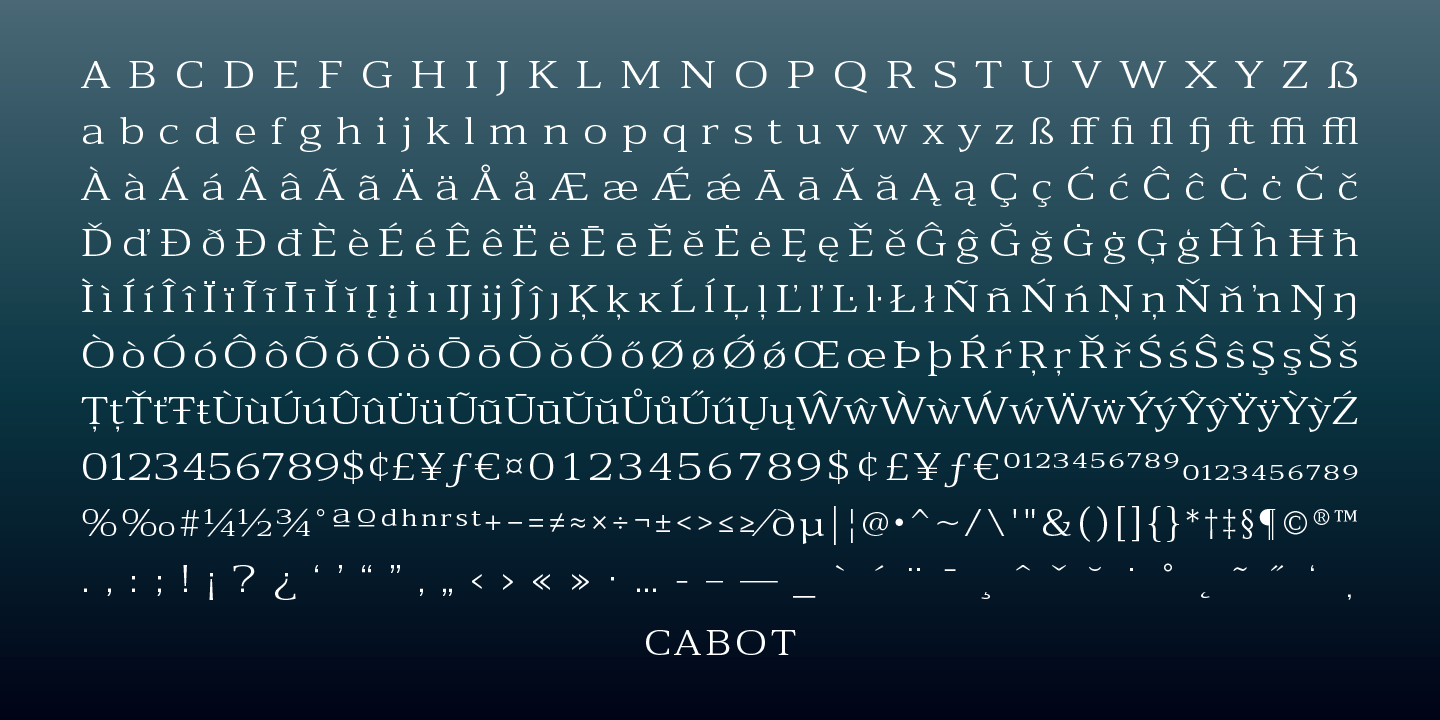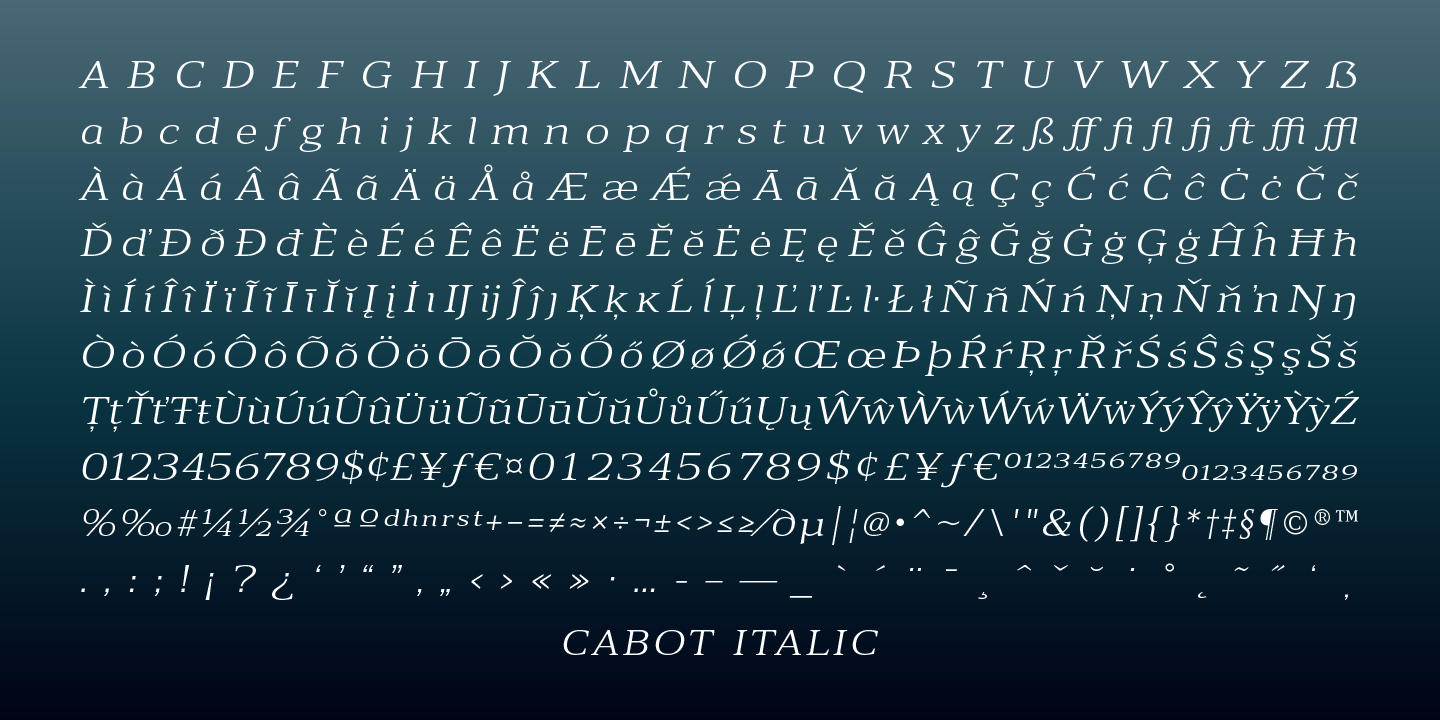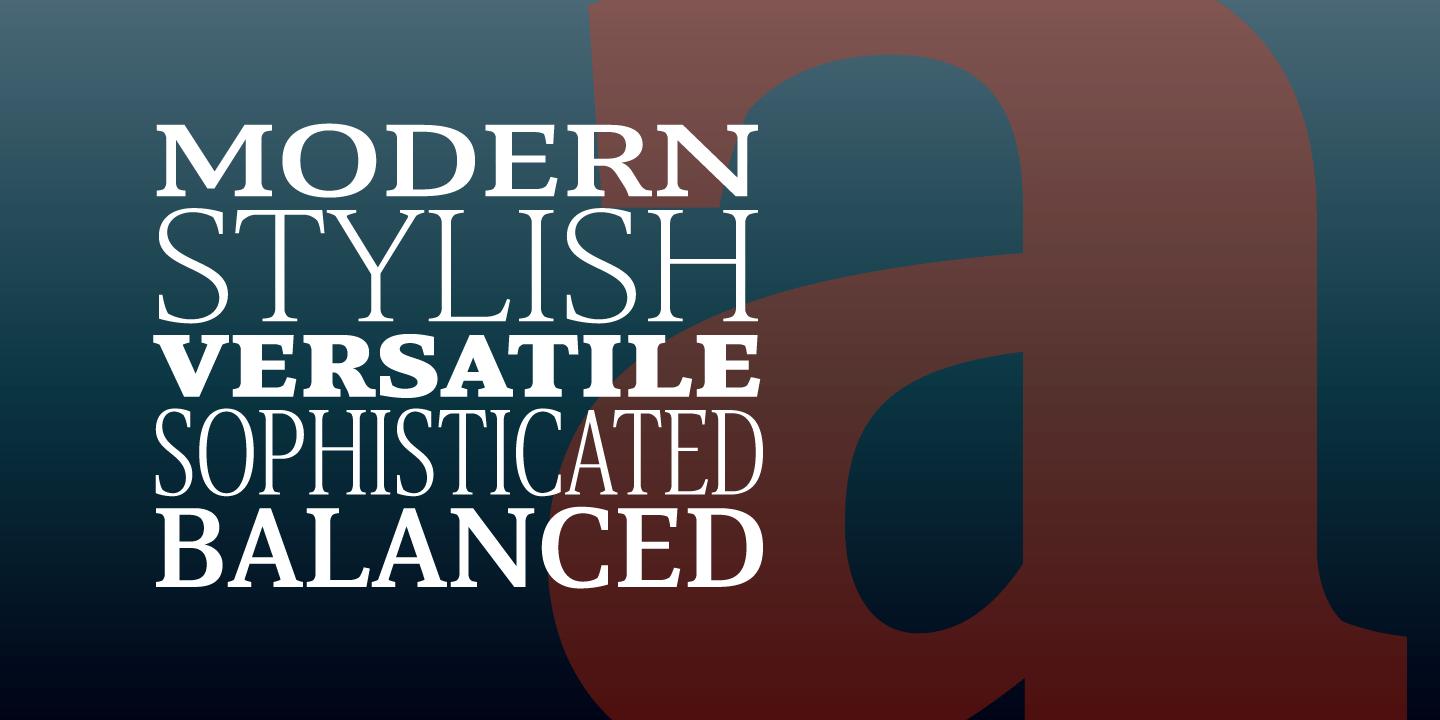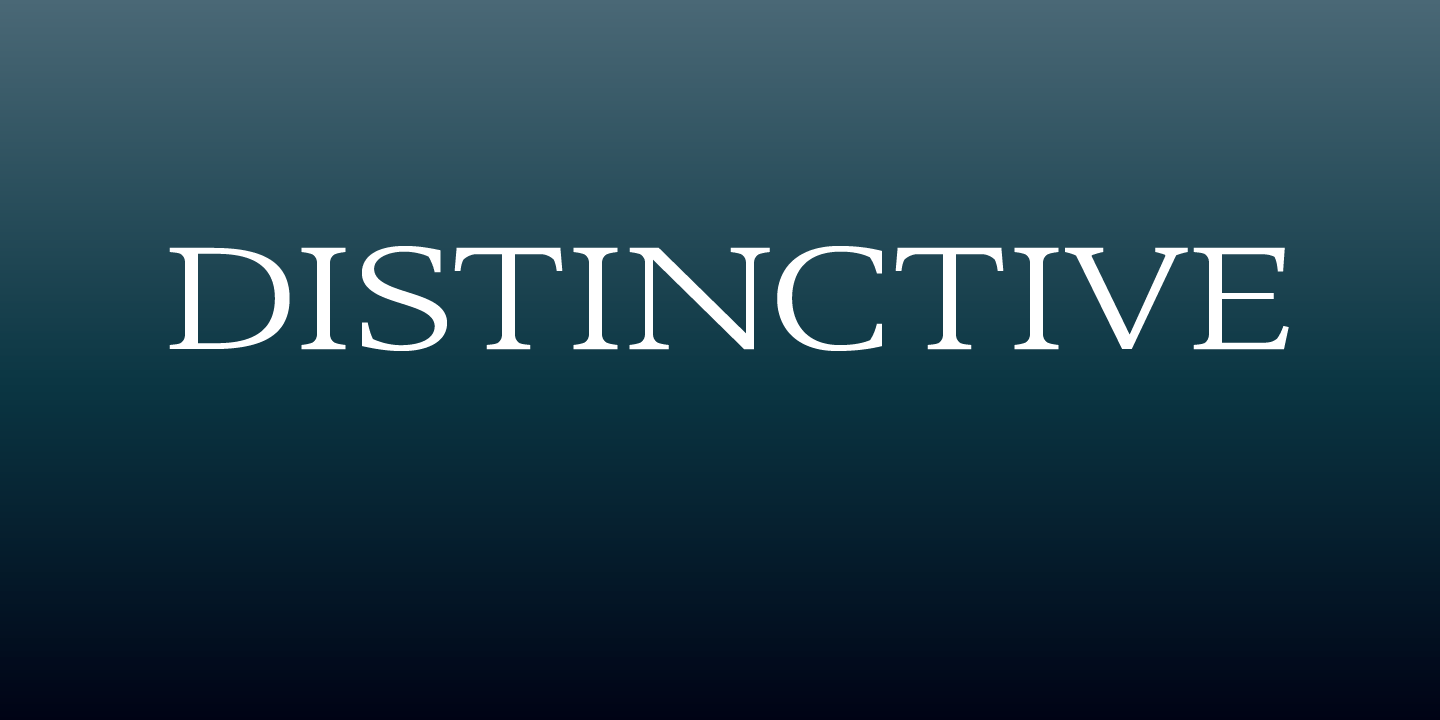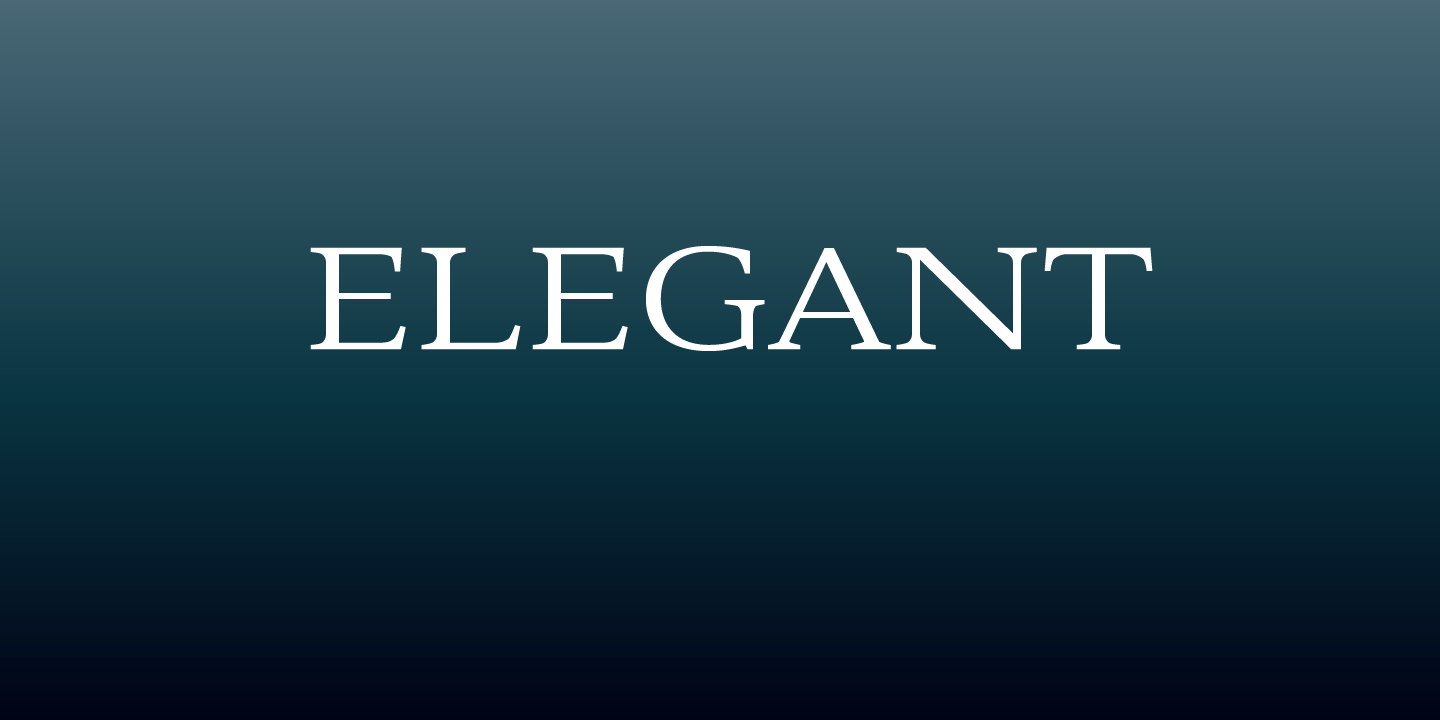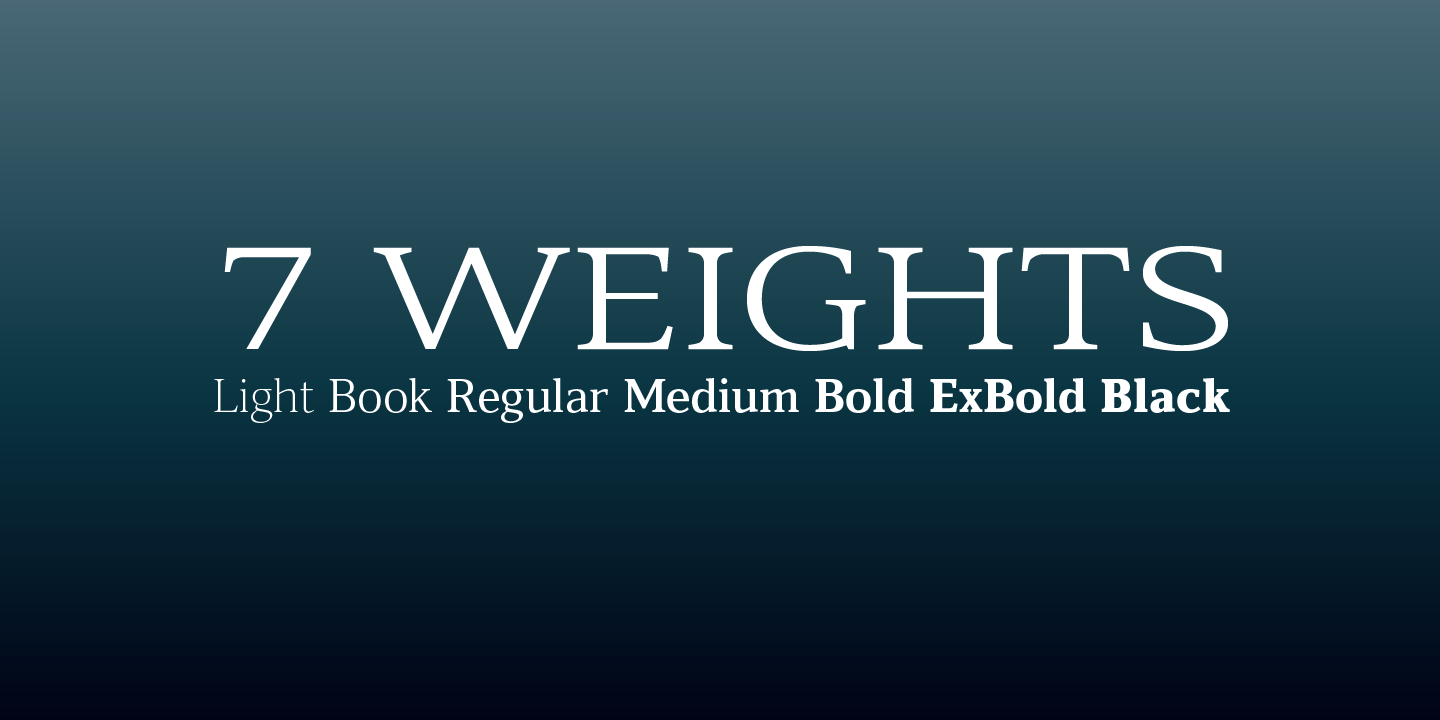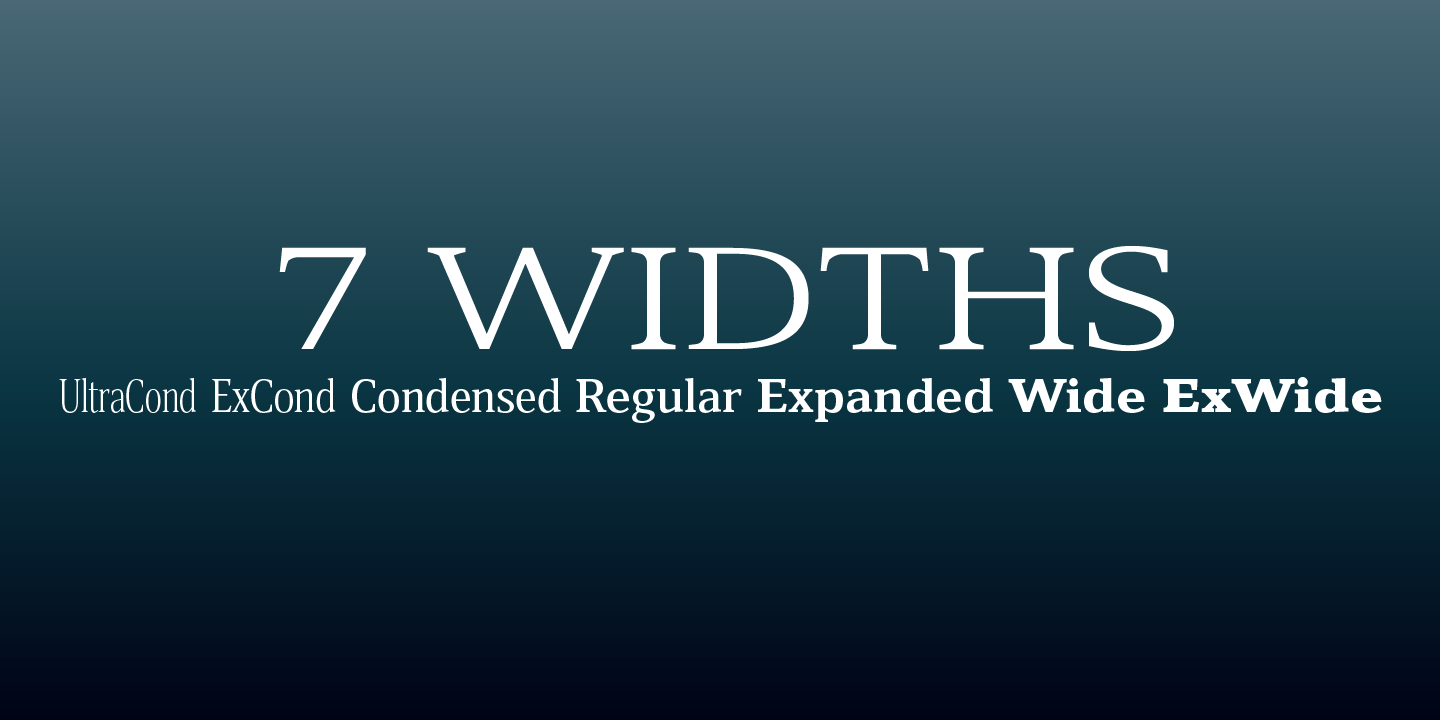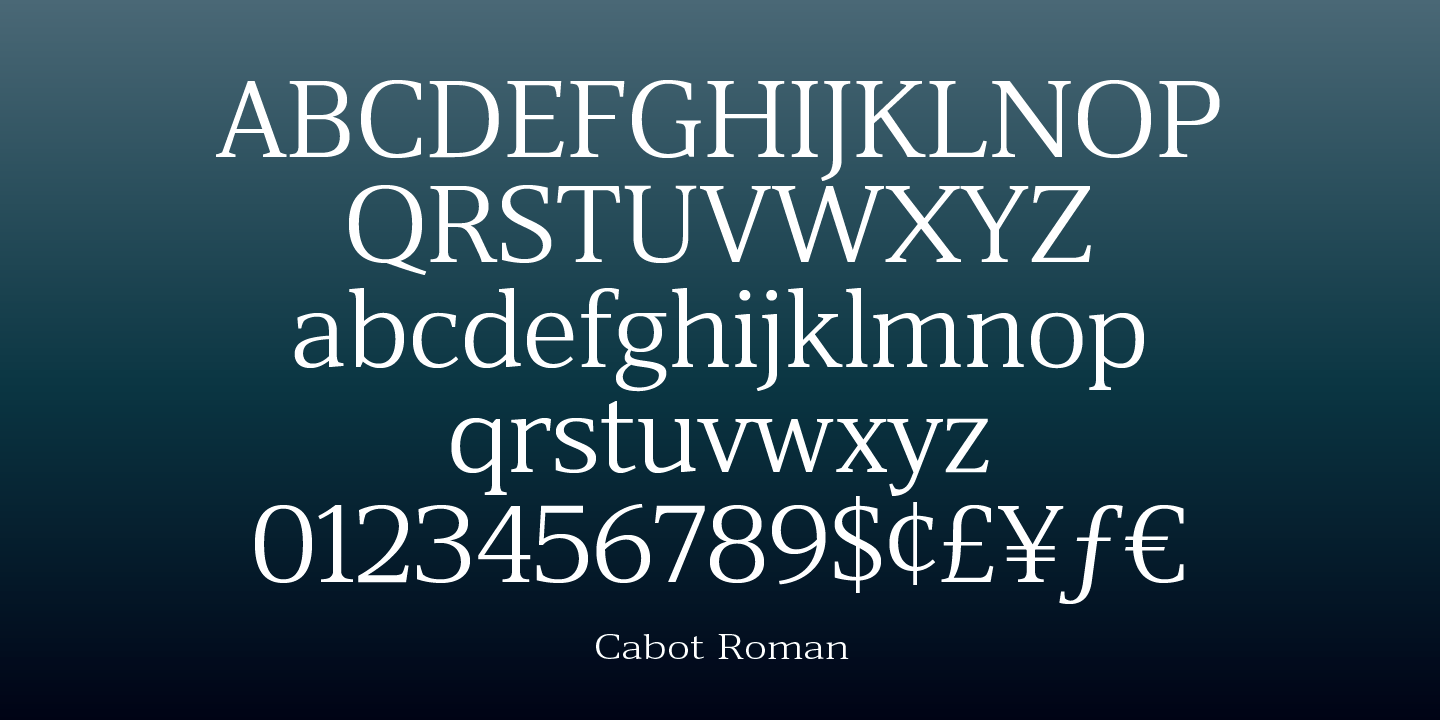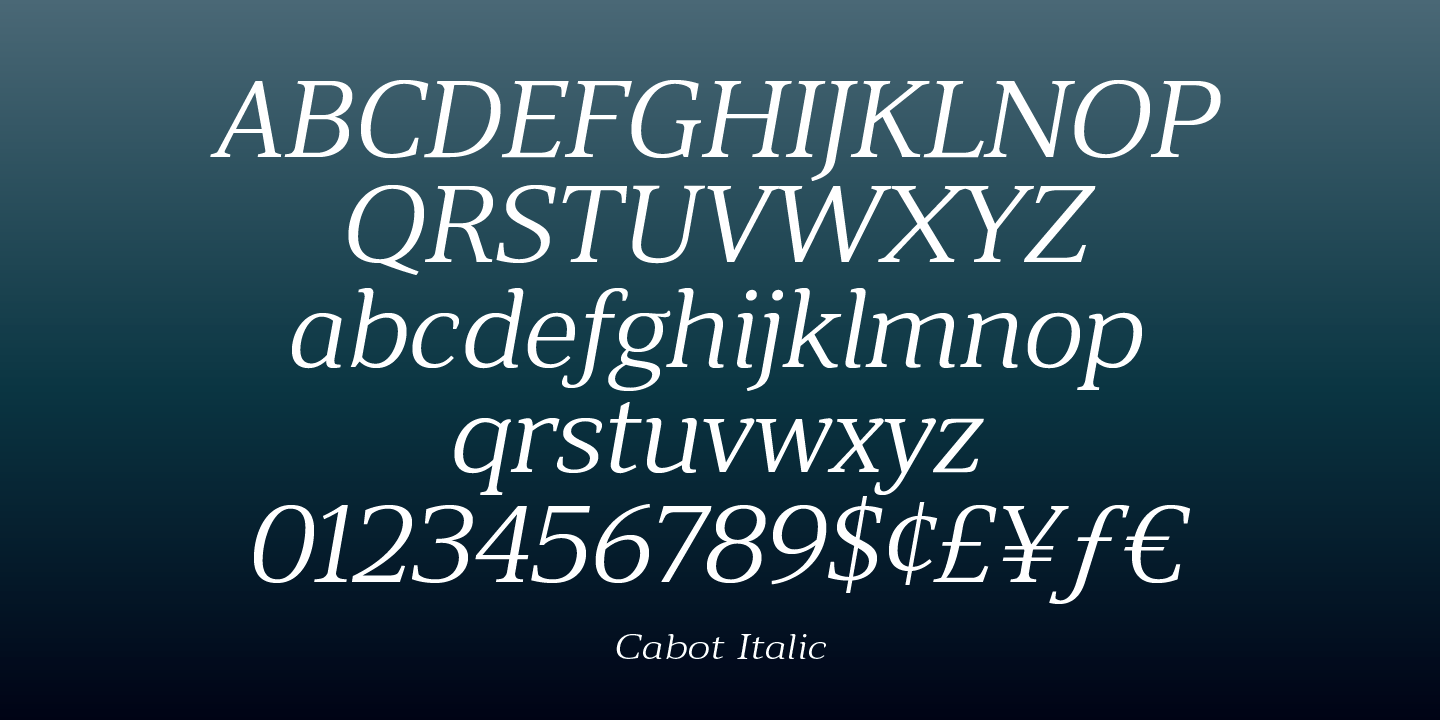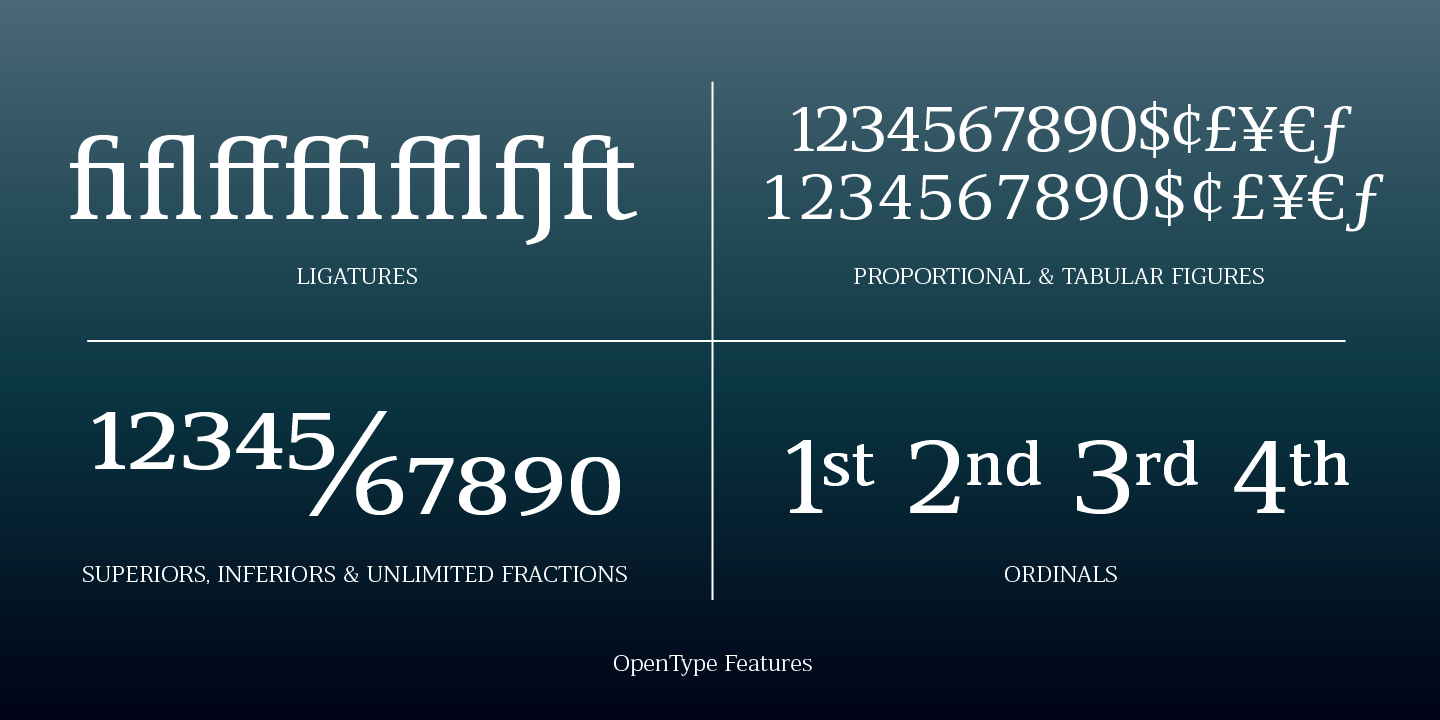
Cabot
Font Family by Park Street Studio
Cabot is a distinctive serif typeface family featuring a bracketed serif design, with a slight kink in it. It's an extensive family spanning 7 weights (Light to Black) and seven widths (Ultra Condensed to Extra Wide), in both roman and italic forms, making it extremely versatile for all kinds of text applications from print to screen and from book to headline and display. The lighter weights create an elegant air, while the heavier weights suggest a powerful presence. All of the Cabot fonts have an extended character set that supports many Western European languages, and each offers a array of OpenType features including ligatures, proportional and tabular figures, superiors and inferiors, unlimited fractions and ordinals.